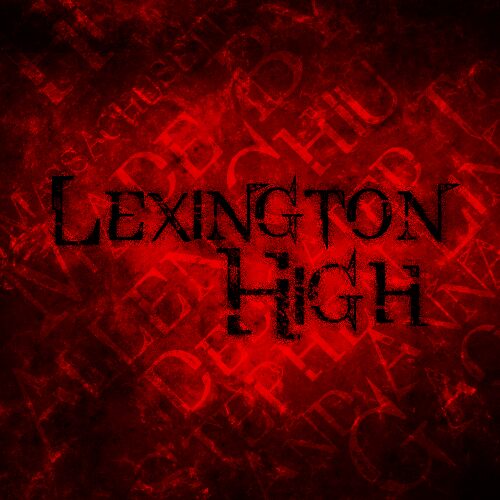
Lexington High
Lexington High is a free eroded display font with a lean, modern Gothic edge. Its tall, uneven letters mix sharp triangular cuts, sweeping curves, and patches of scraped texture, producing a restless silhouette that feels deliberately fractured.
Contemporary Gothic styling makes it a natural fit for alternative music posters and album packaging. The distressed strokes also suit horror event graphics and dark fashion branding, especially when the lettering needs an abrasive, theatrical voice. In those settings, the broken forms can become part of a jagged emblem or damaged sign rather than serving as neutral text.